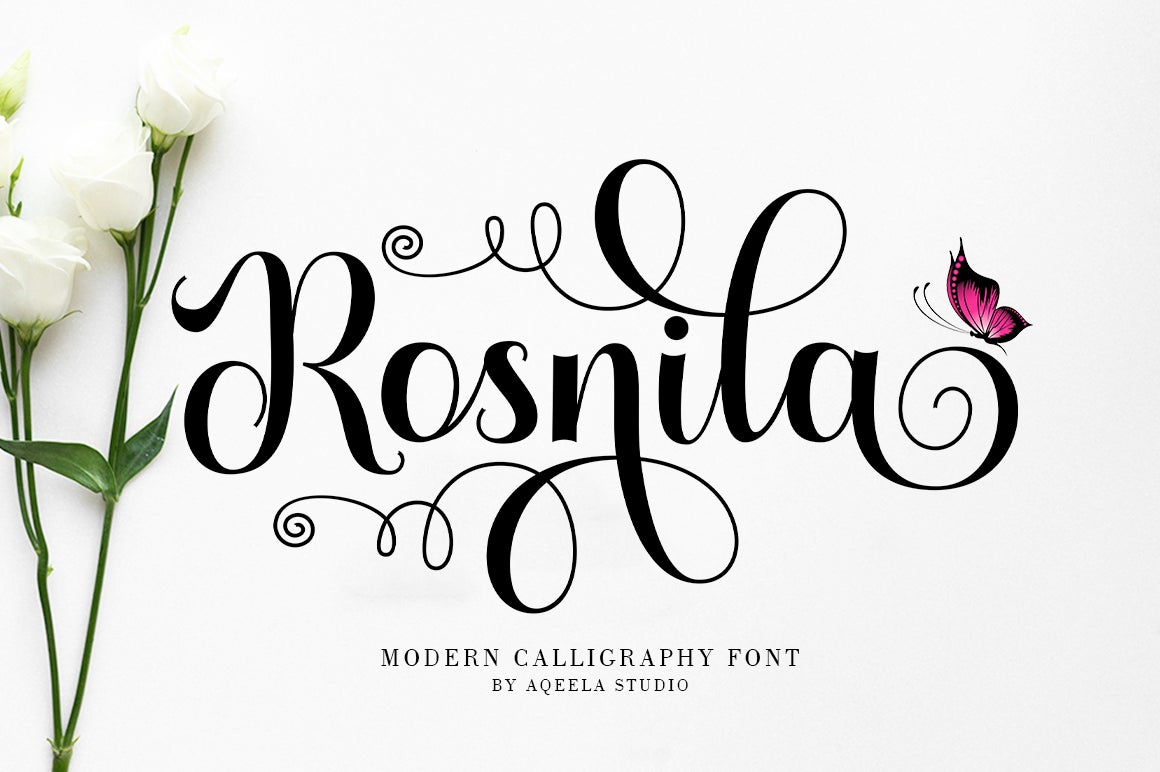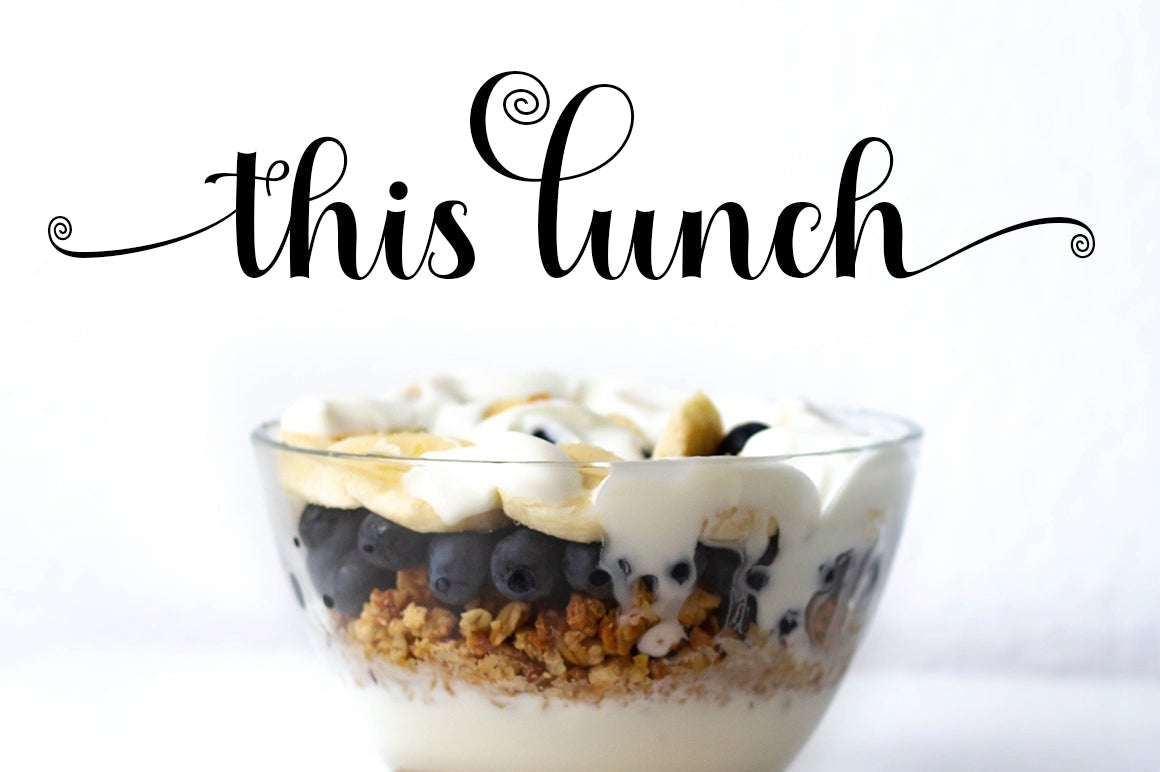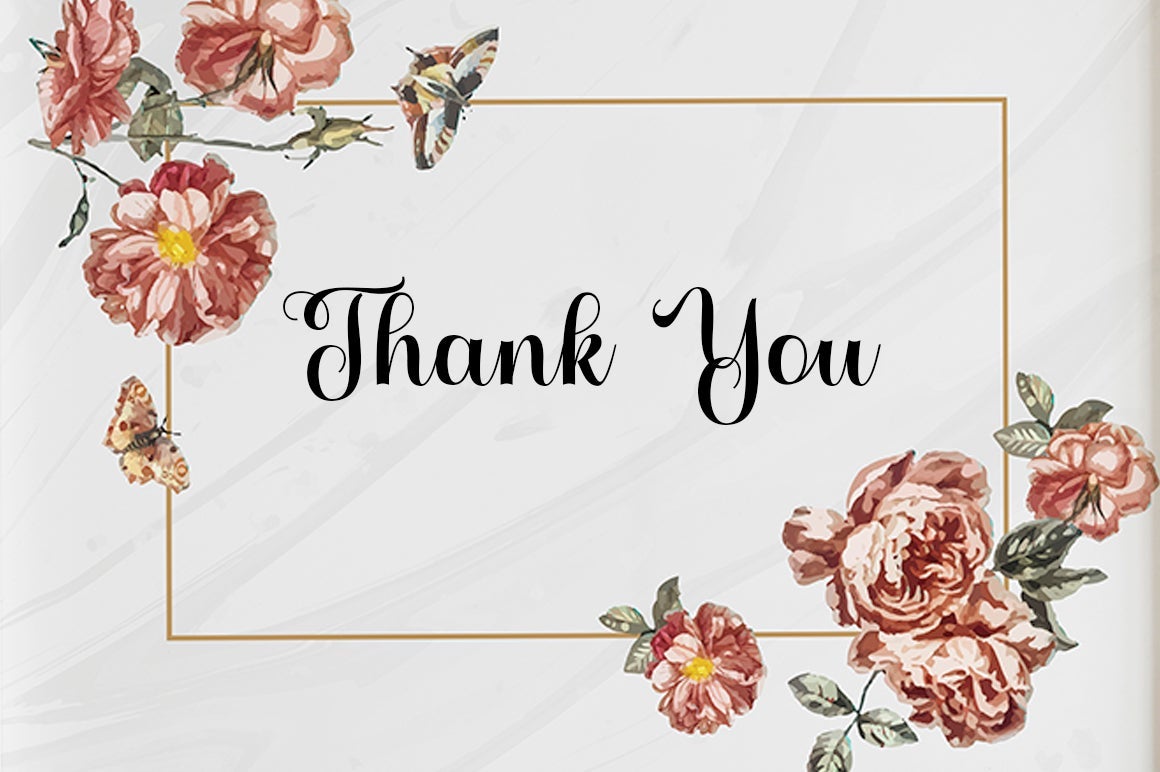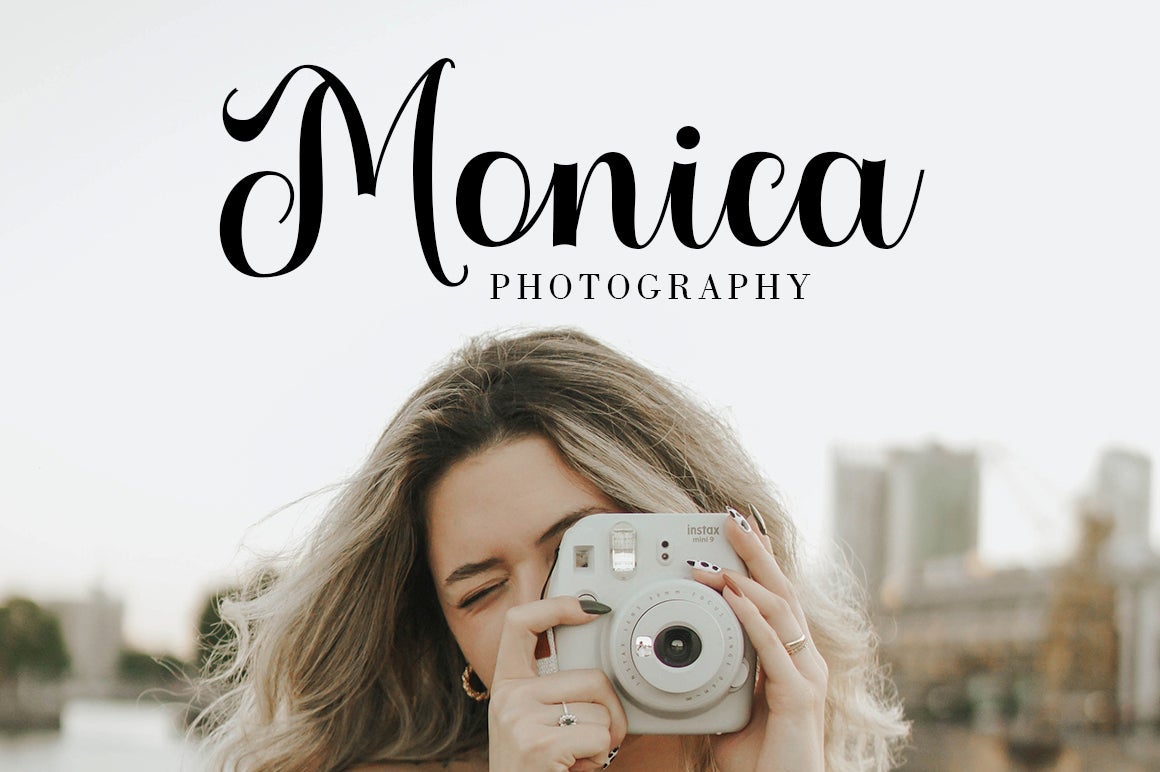
About Rosnila
Rosnila is an elegant and sweet handwritten font with a romantic spark. Use it to add that special enchanting touch to any design idea you can think of! This font is PUA encoded which means you can access all of the glyphs and swashes with ease!